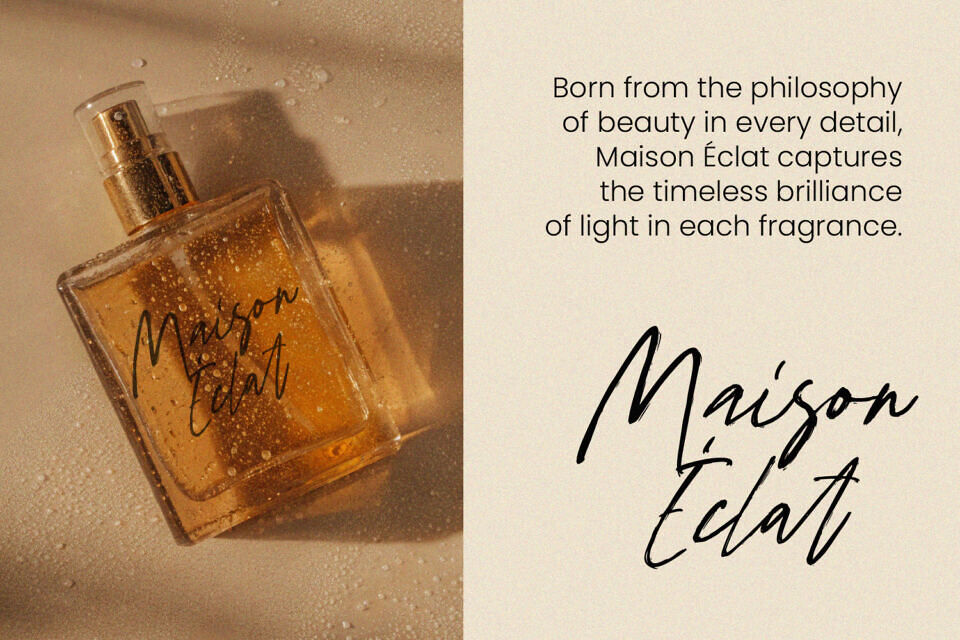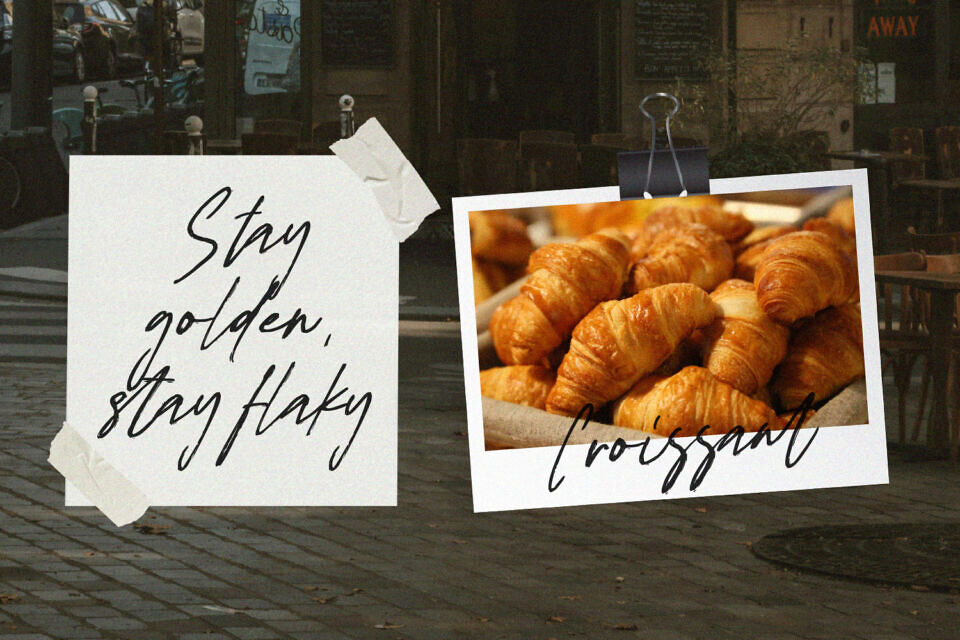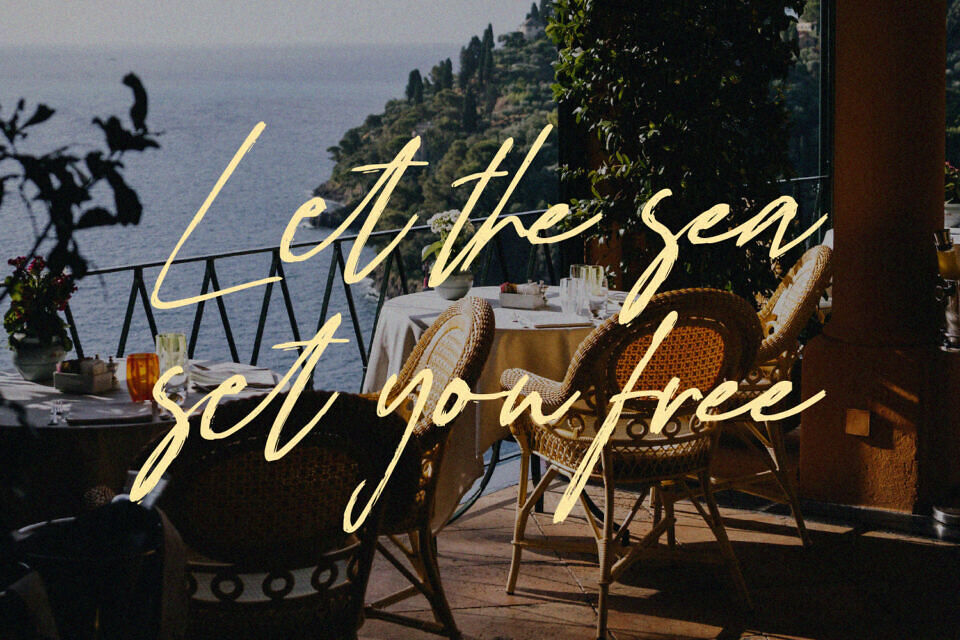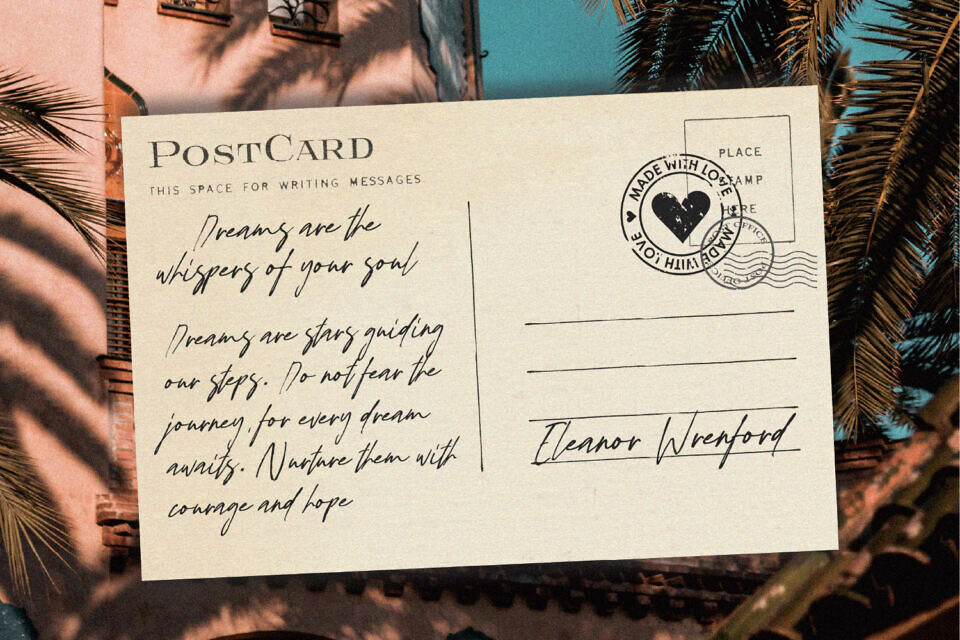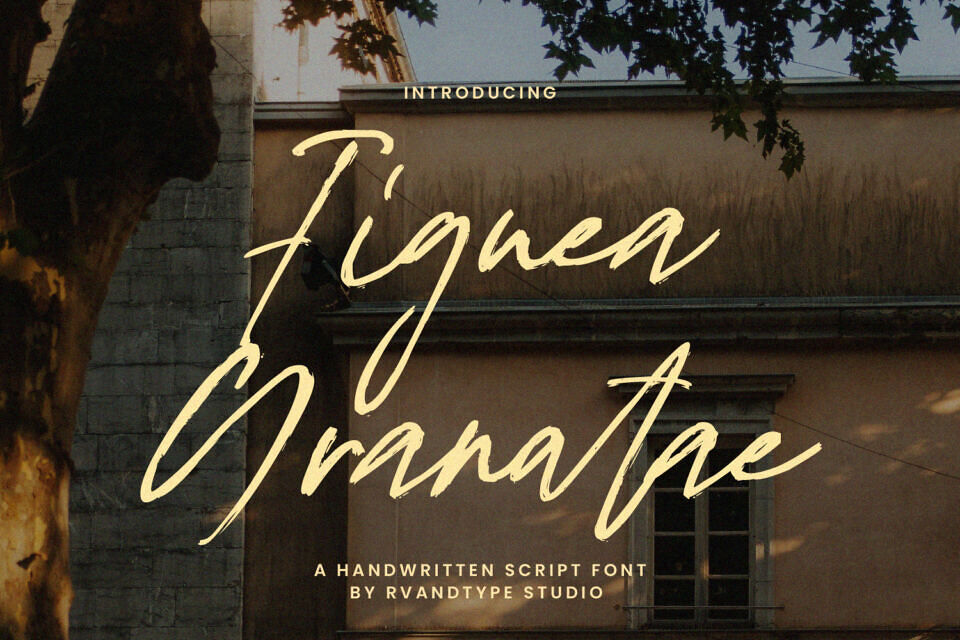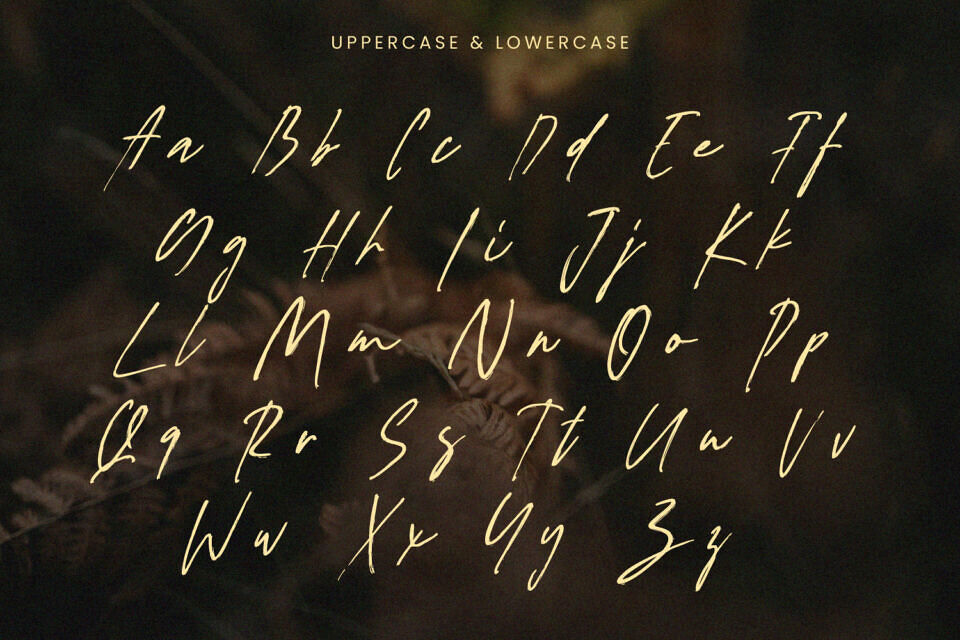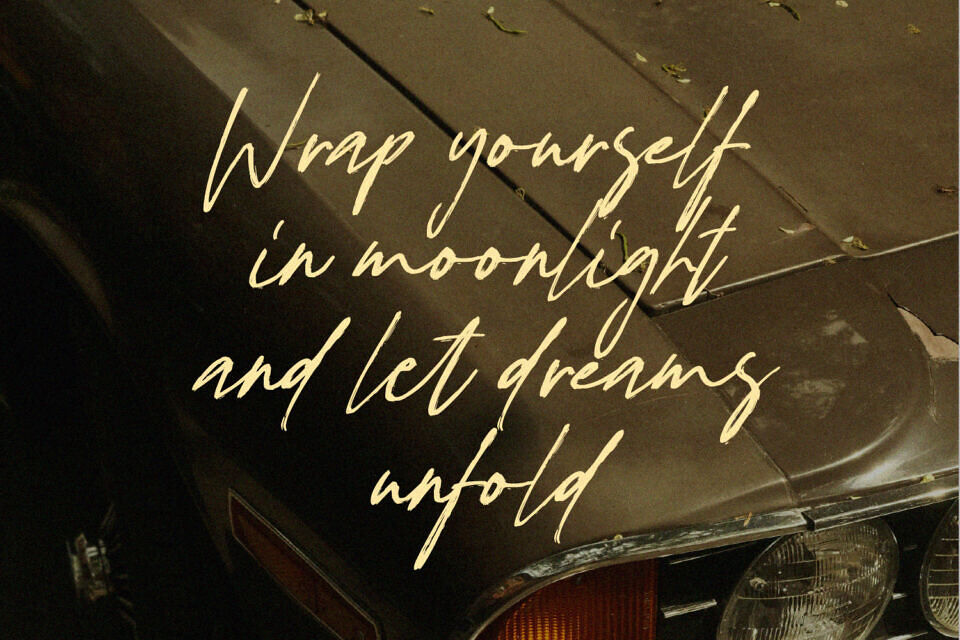
Figuea Granatae Font
Figuea Granatae is a handwritten script font that blends natural penmanship with modern elegance. Its expressive strokes, flowing curves, and subtle textures create an authentic, handcrafted feel perfect for creative projects. Versatile and stylish, it’s ideal for logos, branding, packaging, wedding invitations, greeting cards, posters, and social media graphics.
Balanced uppercase and lowercase letters ensure smooth readability while maintaining an organic, artistic charm. Radiating coastal elegance and rustic warmth, this script font is a must-have for designers seeking timeless, sophisticated, and personal typography.